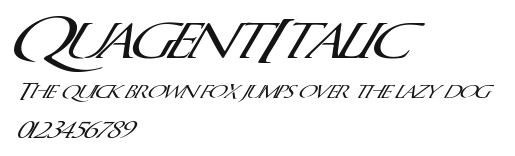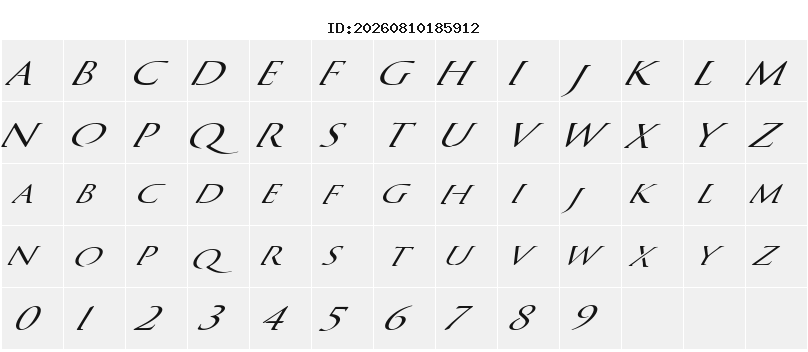
QuagentItalic Preview
• Font Name: QuagentItalic
• Full Font Name: QuagentItalic
• PostScript Name: QuagentItalic
• Designer: Max Infeld Xerographer Fonts
• Manufacturer: Xerographer Fonts
• Description: Made by Xerographer Fonts in Chico,California
About QuagentItalic.ttf
QuagentItalic.ttf is a modern, elegant sans-serif font designed for ultimate readability and visual harmony. Perfect for branding, headlines, web design, and print materials.